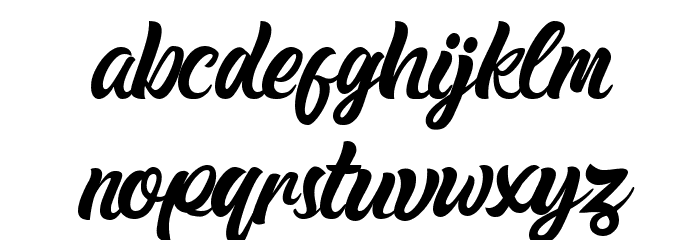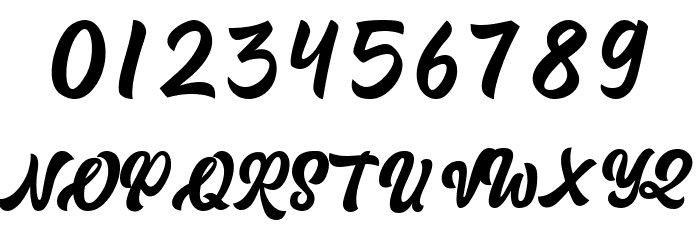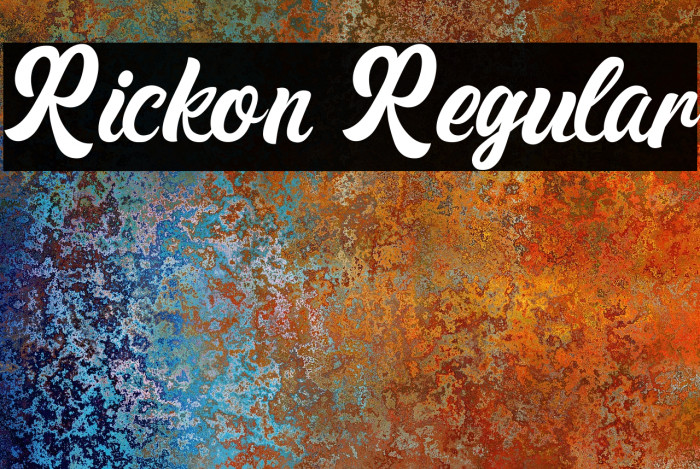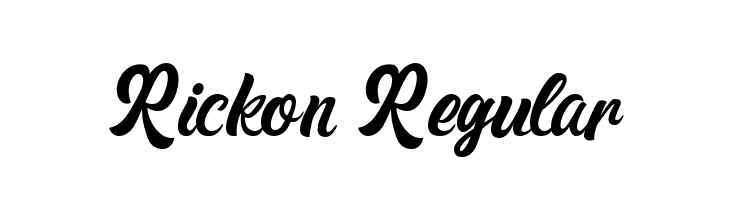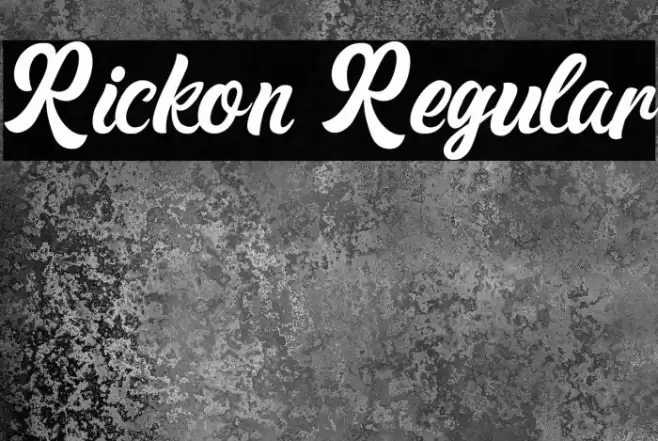
Rickon Regular Font
This font features a bold and flowing script style, characterized by its smooth and continuous strokes that create a sense of movement and elegance. The uppercase letters are slightly larger and more pronounced, while the lowercase letters maintain a consistent flow, enhancing readability. The numerals are designed to match the overall style, with rounded edges and a playful touch. Special characters are seamlessly integrated, maintaining the font's cohesive appearance. The overall design is both modern and classic, making it versatile for various applications.
A bold, flowing script font with smooth, continuous strokes.
- Font: Rickon Regular